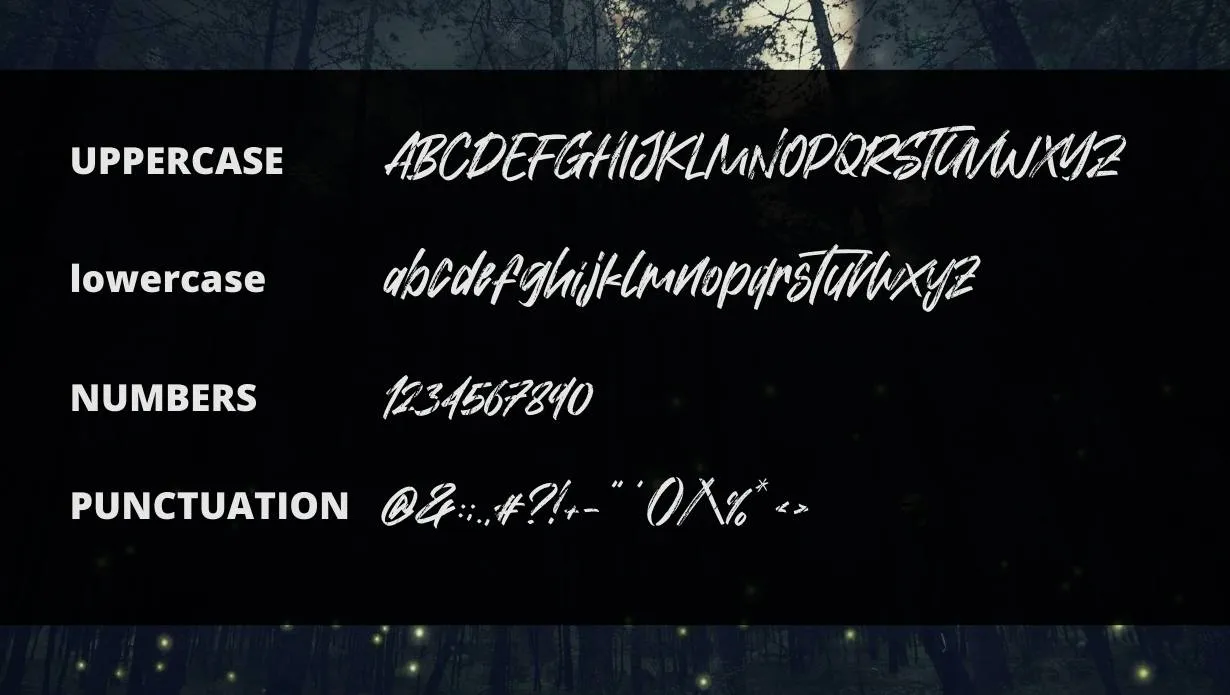
Hiatus Font is a beautiful brush typeface that was created by designer Lucas de Groot. This Font was designed to be used for both body text and display purposes.
- Hiatus Regular
View of Hiatus Font
Hiatus Font Info
| Name | Hiatus Font |
| Designer | Lucas de Groot |
| Style | Brush |